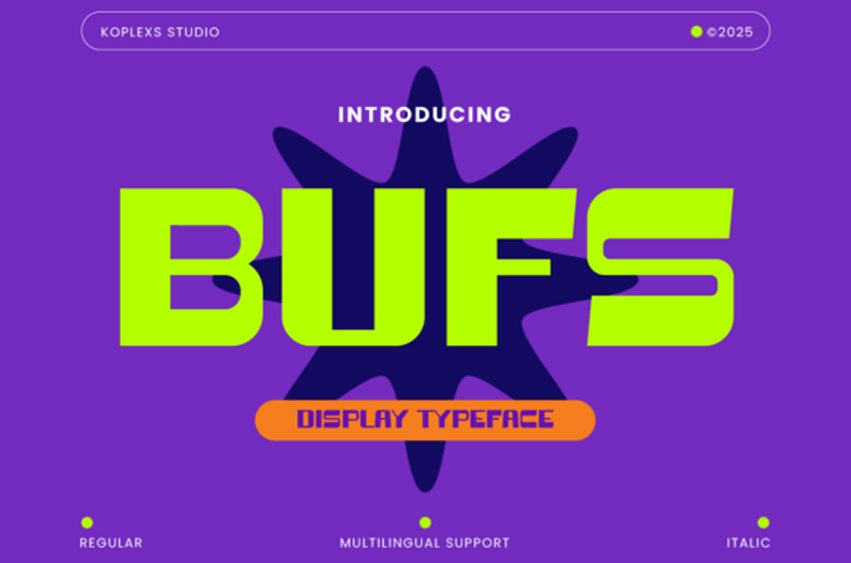
Bufs Font is a sharp and expressive display typeface designed to bring high energy and unique character to your work. With its clean cuts, geometric form, and impactful presence, Bufs stands out effortlessly in any visual environment.
This typeface includes both Regular and Italic styles, making it versatile for everything from strong headlines to edgy branding.